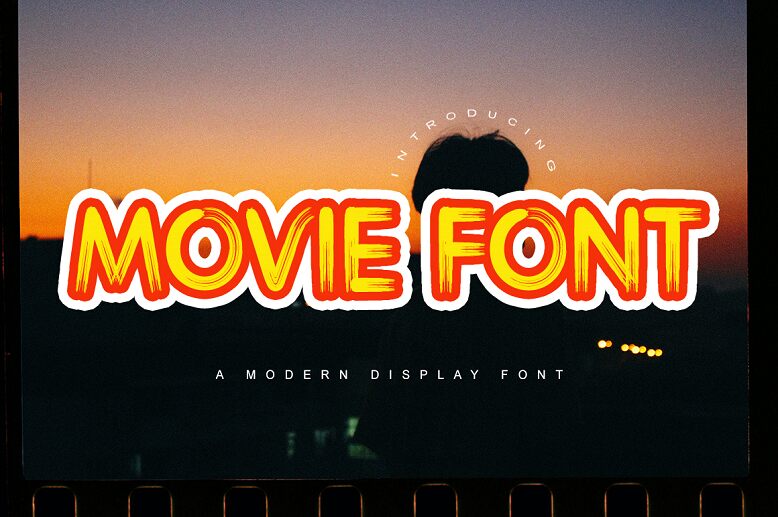
Movie Font
Movie font by Bahrul Studio is a free brush font that imitates the amazing irregular strokes of an actual brush pen. The design gives off both a casual yet professional appearance which can help users achieve desirable results with ease. Overall, with its handcrafted appearance, Movie is both expressive and dynamic.
Use this artistic brush aesthetic to decorate logos, branding designs, packaging designs, posters, book covers, social media posts and more. Several uses related promotional marketing are possible incorporating banners and flyers. This premium resource is free to use in all sorts of purposes making it highly versatile given all its applications.